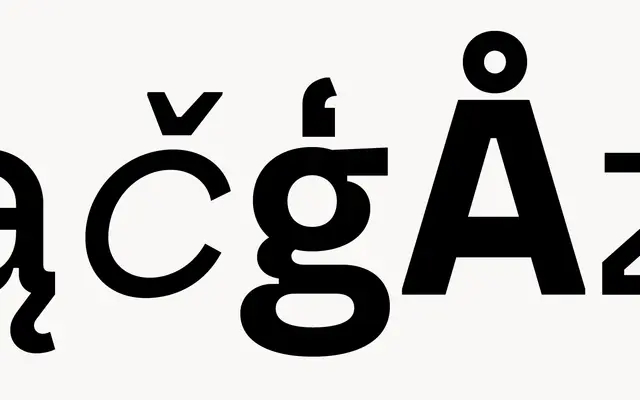
Borna
A humanist sans in four weights with italics, drawn for branding and editorial work that wants a warmer, more personable tone.
A humanist sans by atipo foundry with a calligraphic skeleton and slight stroke contrast. The family runs through Regular, Medium, SemiBold and Bold with matching italics for eight styles in total. OpenType features include tabular figures for tables, price lists and financial reports, plus pre-designed fractions, numerators, denominators, superscript, scientific inferiors and ordinals. Language coverage runs across the main European Latin scripts.
A humanist sans with a calligraphic skeleton, slight stroke contrast and a true italic. Drawn for branding and editorial work where a warmer, more personable voice is wanted than a pure grotesque.